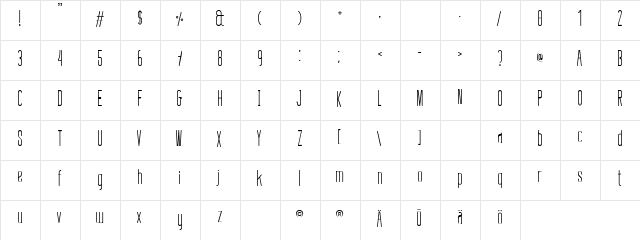
Linja Regular
Design Context for Linja Typeface
Linja offers clean, dependable letterforms without strong stylistic allegiance, making it a practical choice for designers who need flexibility.